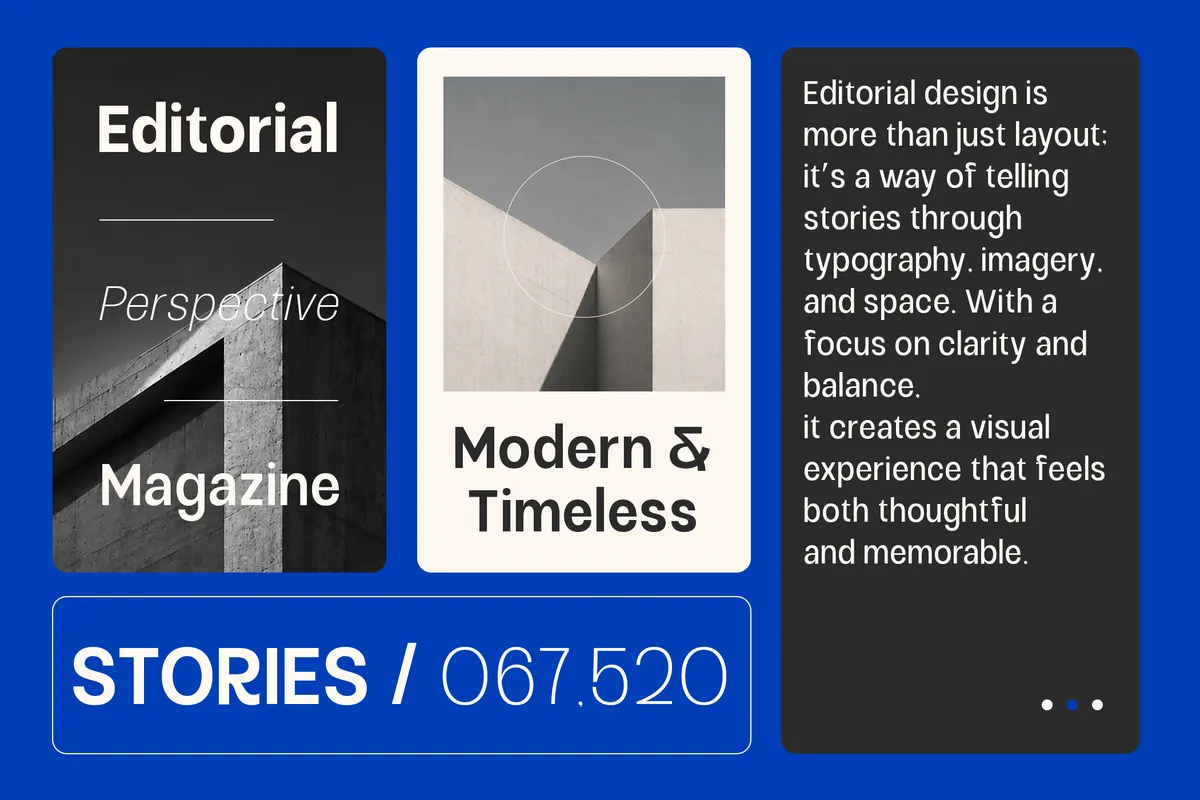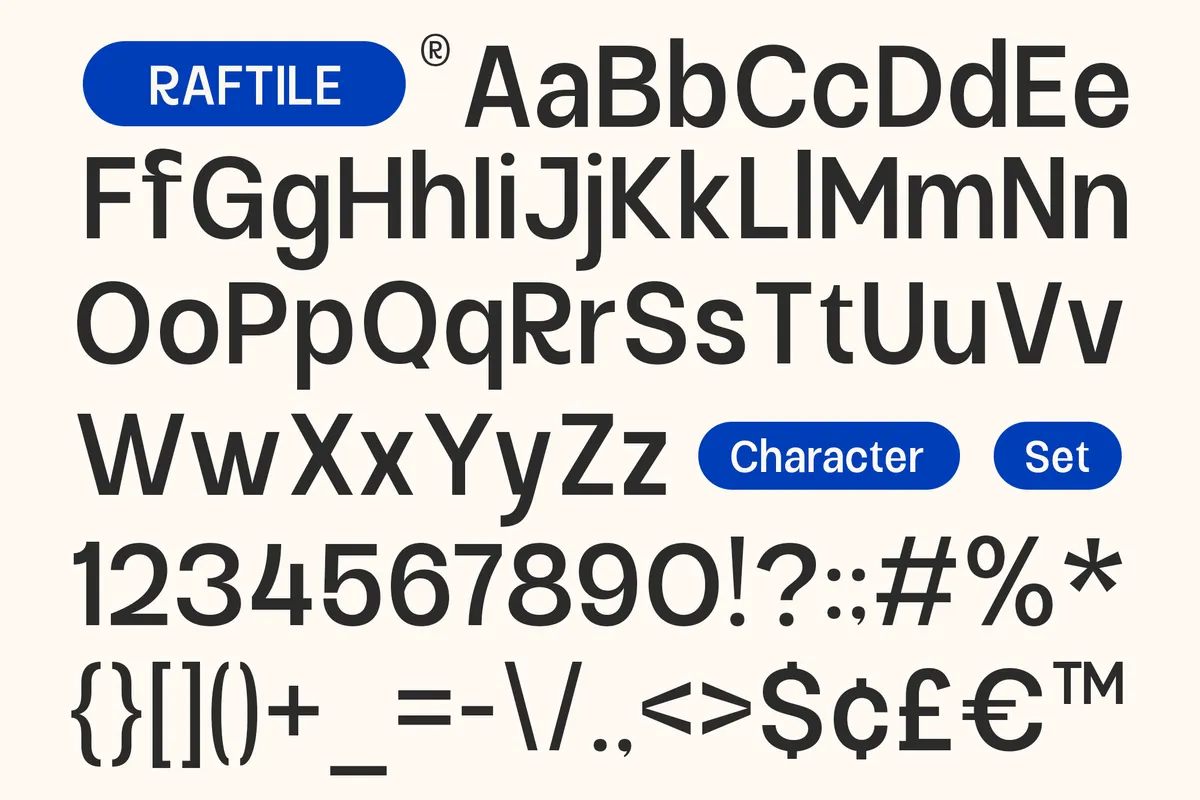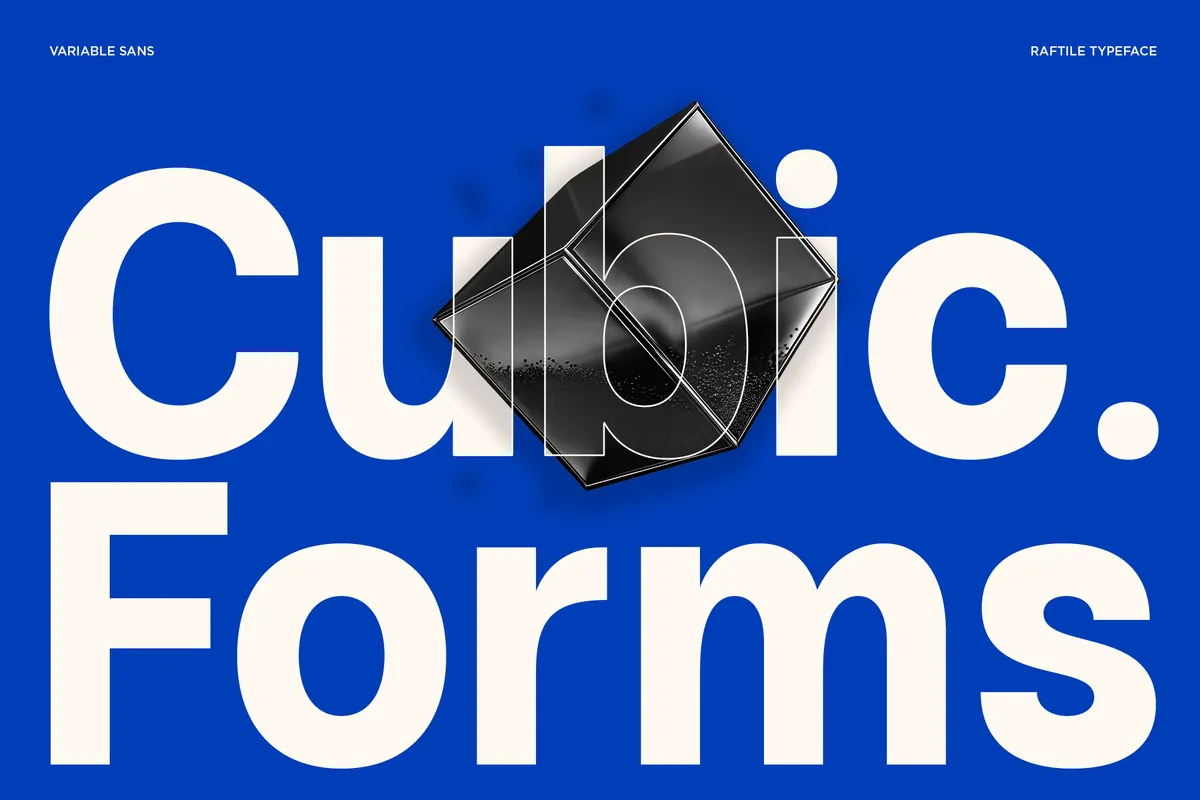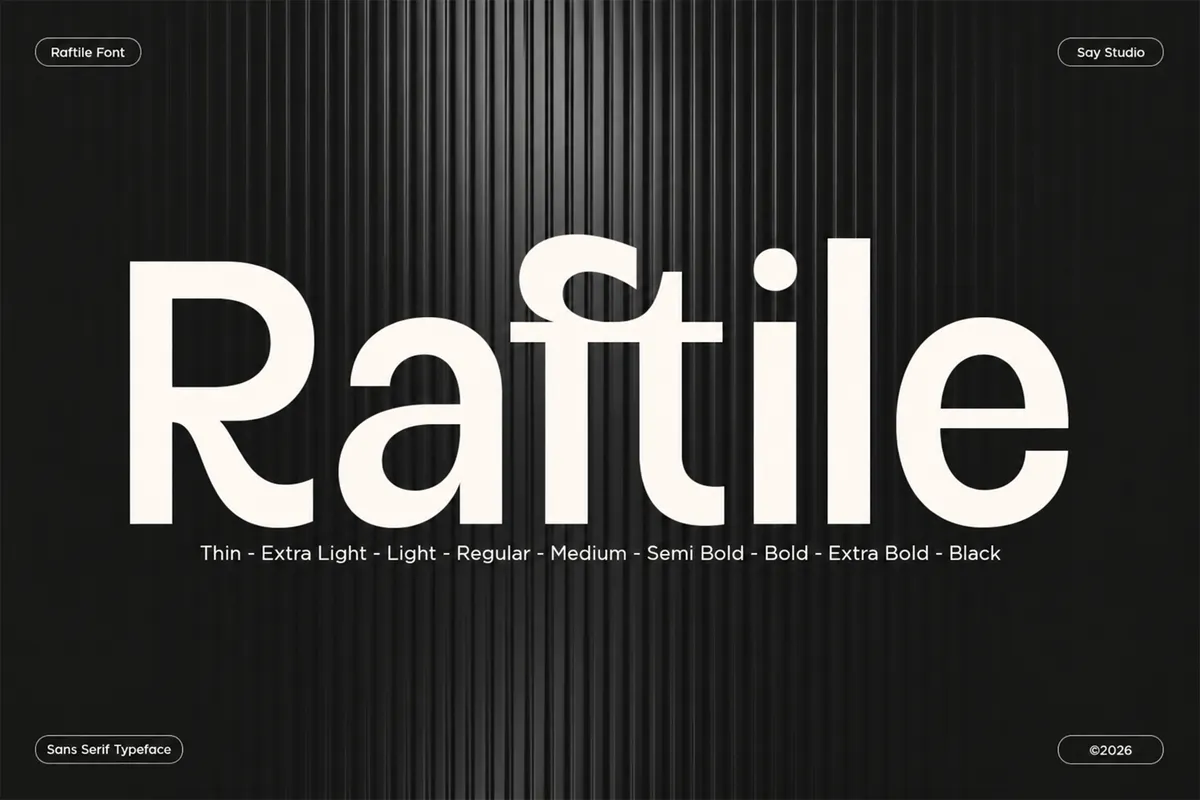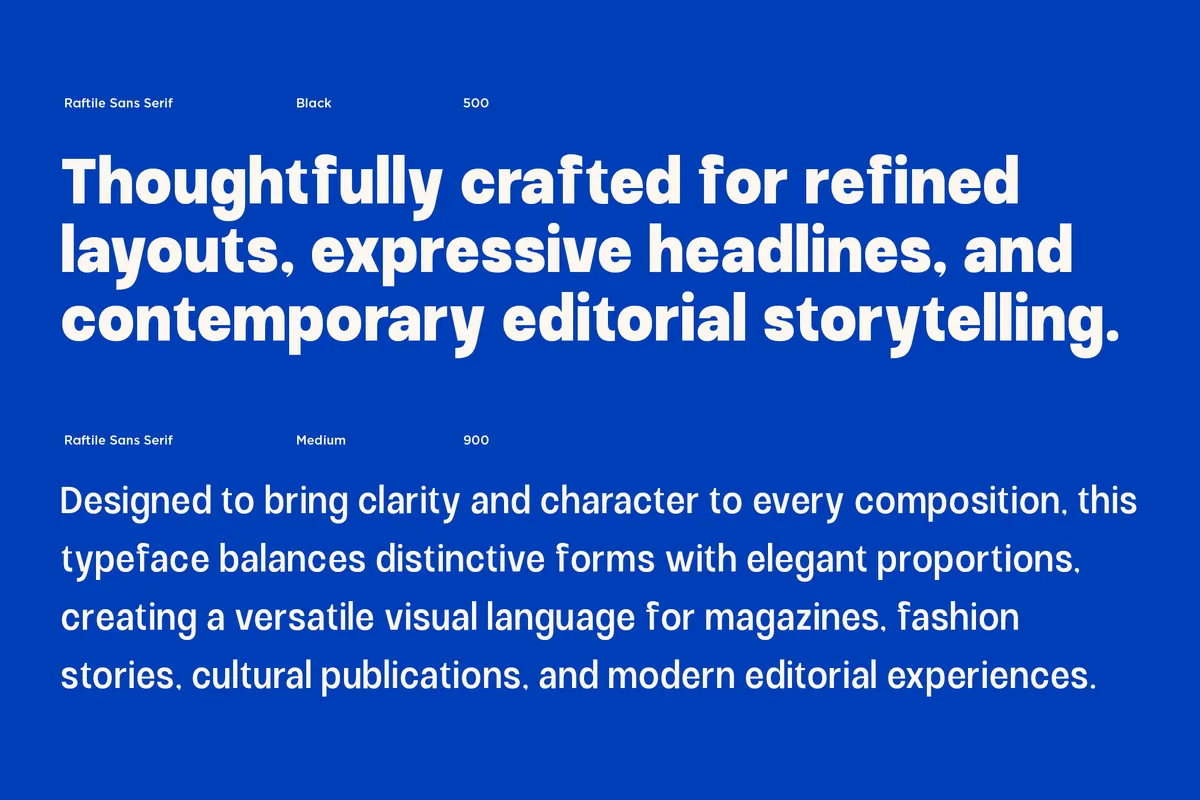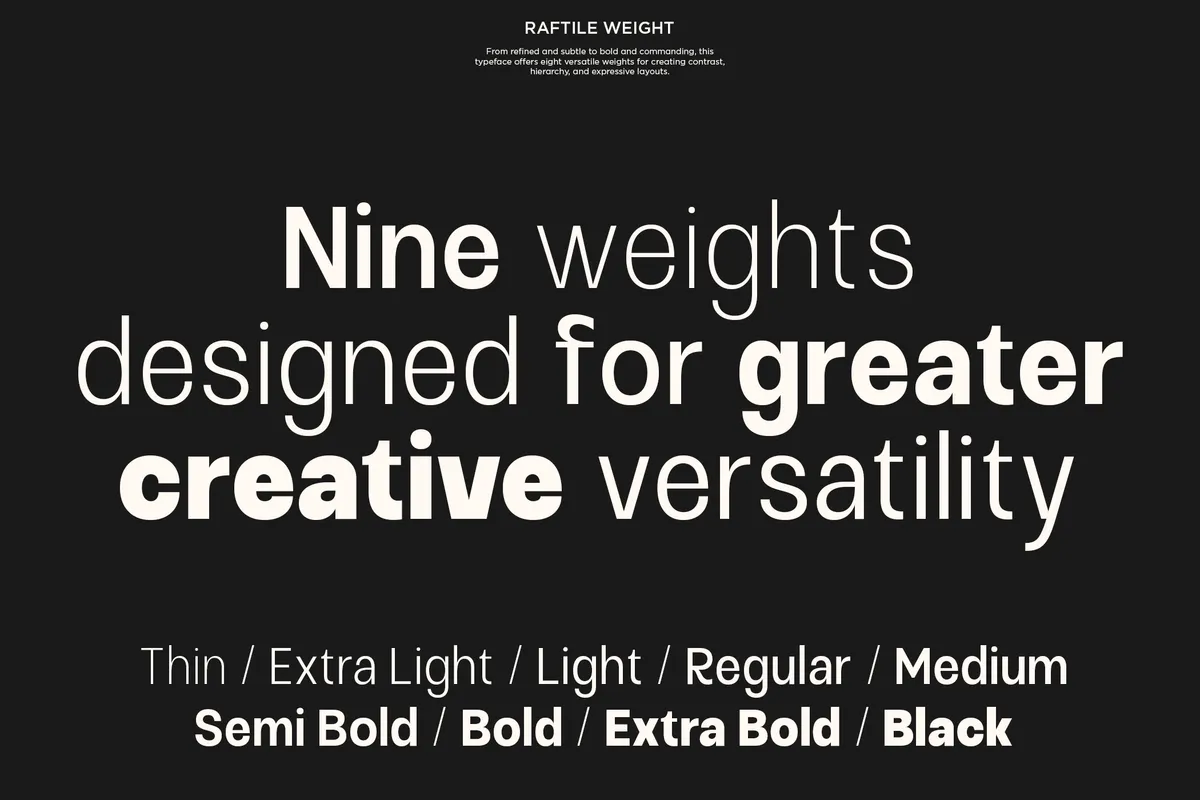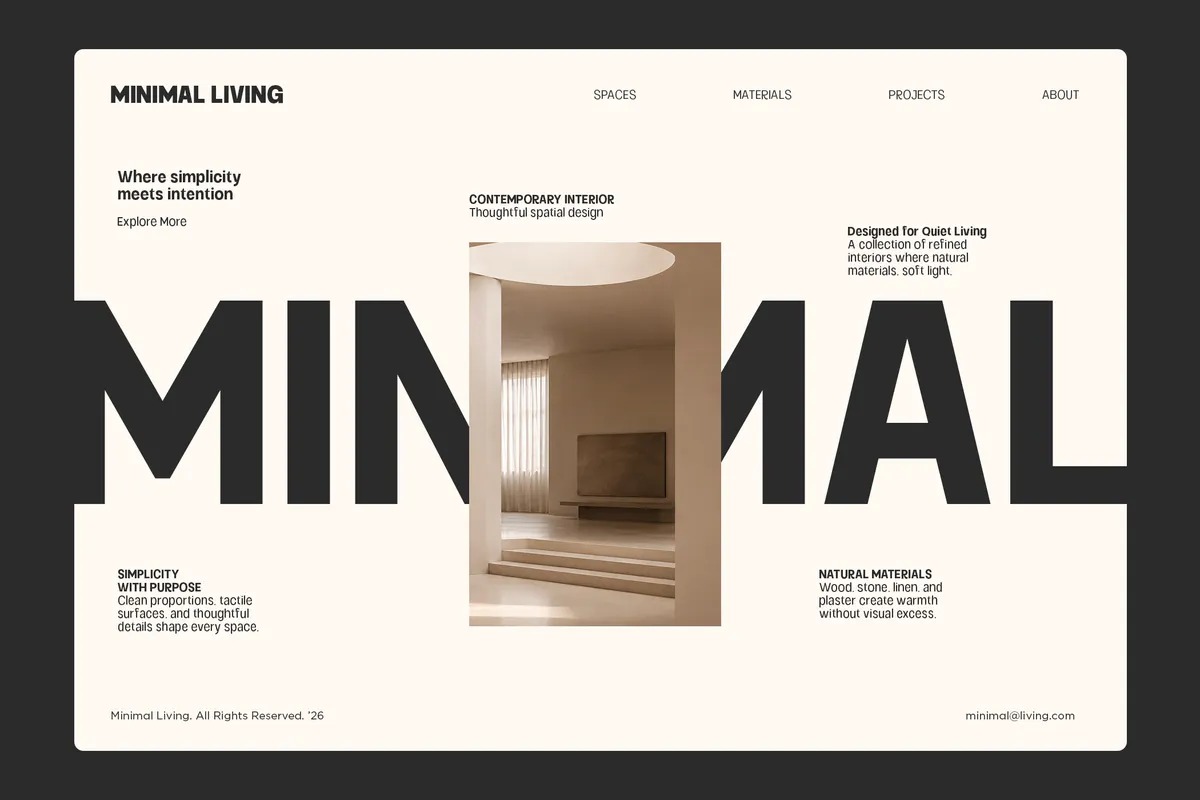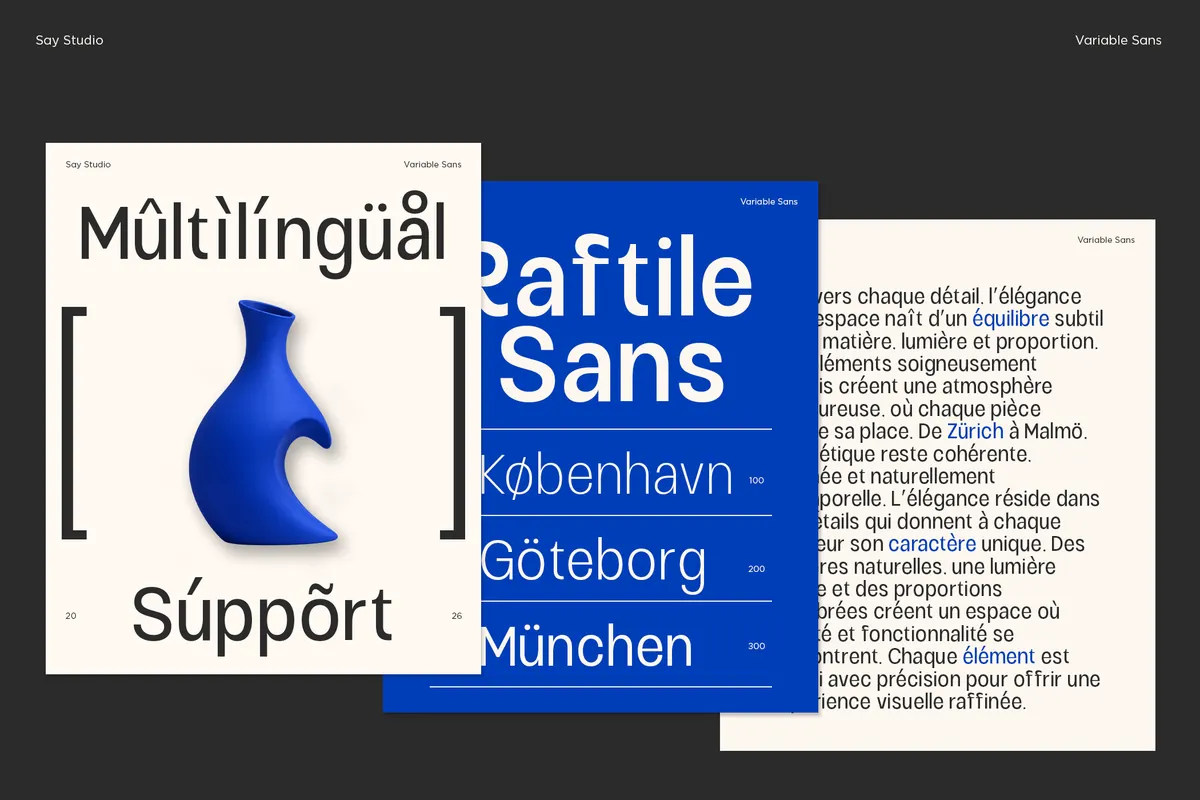
Raftile - Bold Sans Serif Font Family
Raftile builds a clean, rounded grotesque sans with soft corners, closer to a contemporary type-foundry release than a technical utility face. Nine weights move from a hairline Thin through a solid Black, and a matching italic runs alongside every one of them. Ligatures swap in connected forms for fi and fl, reachable through the OpenType panel.
Use it for branding, editorial and magazine layouts, posters, packaging, web and UI design, and social media graphics.
- Uppercase & lowercase;
- Numerals, punctuation & symbols;
- 9 weights: Thin, ExtraLight, Light, Regular, Medium, SemiBold, Bold, ExtraBold, Black;
- Matching italic for every weight;
- Ligatures (fi, fl) and superscript figures;